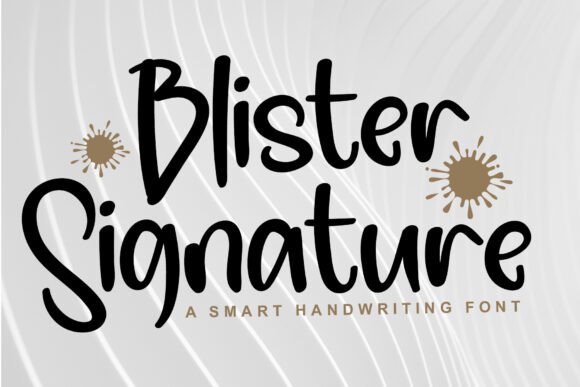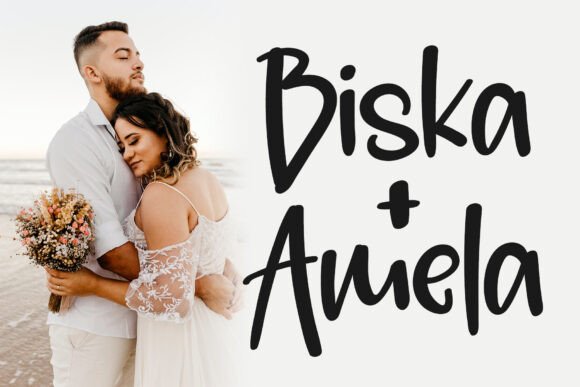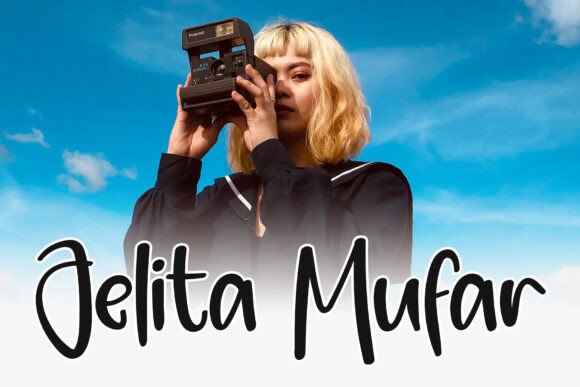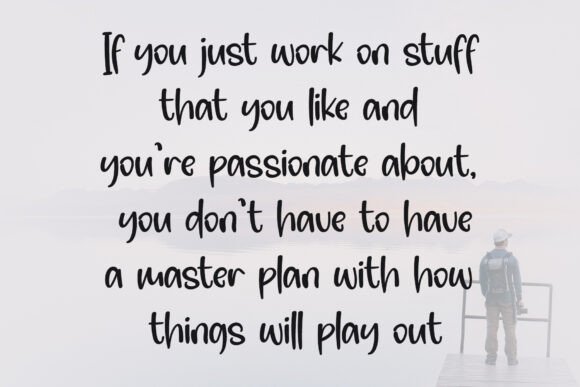
Blister Signature Font
About the Blister Signature Font
The Blister Signature Font is here to transform your projects with its distinctive character and style. Blister Signature – A Delightful Elegant Script Font
Introducing Blister Signature – a beautifully crafted handwritten script font that exudes elegance and charm. Perfect for branding, invitations, logos, and any creative project, this font combines fluid, natural strokes with a touch of sophistication, making it an ideal choice for an Elegant Script Font.
Whether you’re designing a bakery logo, a romantic greeting card, or stylish packaging, Blister Signature adds a personal and refined touch. Elevate your designs with this versatile script handwriting font!
Blister Signature Font Usage Examples
Blister Signature Font Example